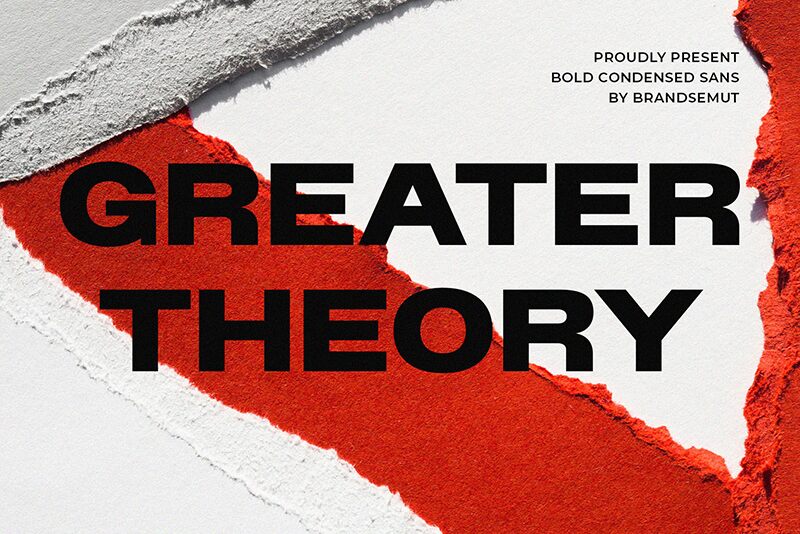
Greater Theory, a captivating sans serif font crafted by BrandSemut, radiates a bold and expansive presence. Its distinctive letterforms exude a sense of grandeur, with clean lines and a confident, modern aesthetic. The expanded width adds a touch of sophistication, creating a strong and impactful visual impression.
This versatile font excels in a variety of design applications, from large-scale branding and headlines to eye-catching packaging and editorial layouts. Its bold character makes it an excellent choice for commanding attention, whether in digital or print mediums. Greater Theory's versatility allows designers to harness its power to craft memorable typographic compositions that leave a lasting impact.